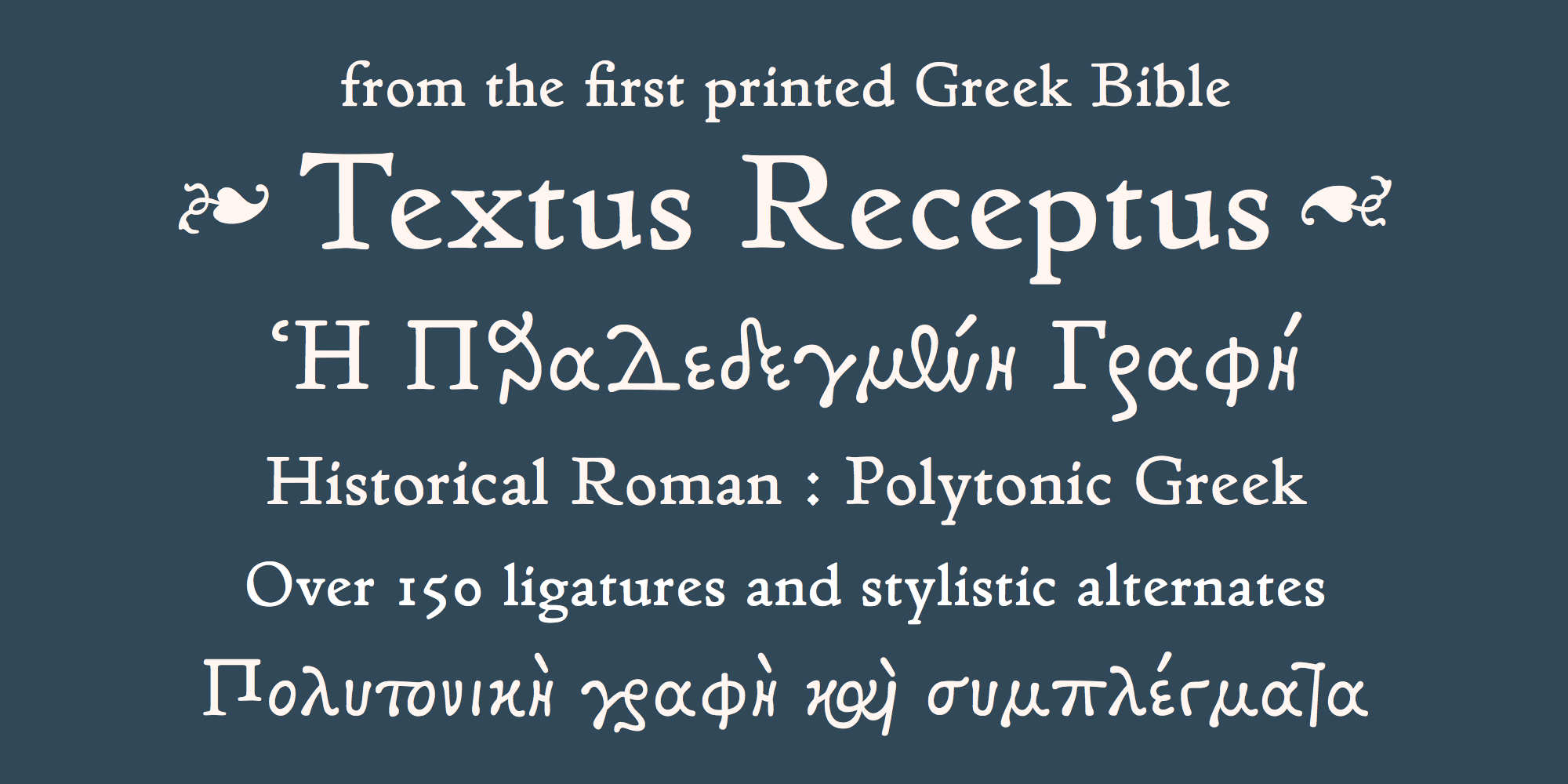
The Textus Receptus Font is particularly well-suited for projects that require a traditional, scholarly, or solemn appearance. Its design often reflects historical script forms, making it an excellent choice for academic publications, theological texts, and historical documents. It's also ideal for religious texts, formal invitations, and certificates, where a sense of gravitas and authenticity is desired. Furthermore, consider Textus Receptus Font for book covers for historical fiction, educational materials on classical subjects, and branding for institutions with a heritage focus. Its unique character can also add significant weight to museum exhibits and archival displays.
What makes the Textus Receptus Font so exciting is its profound connection to history and its ability to evoke a sense of timeless tradition. It often features intricate details, elegant serifs, or a calligraphic quality that harks back to ancient manuscripts and early printed works. This characteristic allows it to imbue your text with a sense of authority, reverence, and classical beauty. It’s a font that doesn't just display information; it tells a story of enduring knowledge and craftsmanship, providing a deep aesthetic appeal to scholarly and formal projects. Its distinctive nature ensures your work will possess a unique and dignified character.
The Textus Receptus Font family typically focuses on delivering a specific historical or traditional style. You will usually find a well-designed Regular weight, which might be complemented by specific bold or italic variations that maintain its classical integrity. Due to its specialized nature, the family might also include unique ligatures, alternate characters, or glyphs that are relevant to historical or linguistic texts, further enhancing its authenticity and utility for niche applications. These elements allow designers to precisely replicate historical typographic styles.